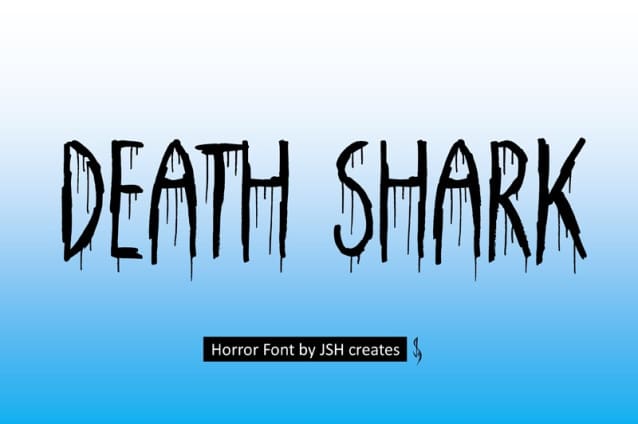
Death Shark Font
Death Shark Font, Cool handwritten horror font. Perfect for advertising and display purposes, including banners, book covers, shirts, posters, logos and much more!